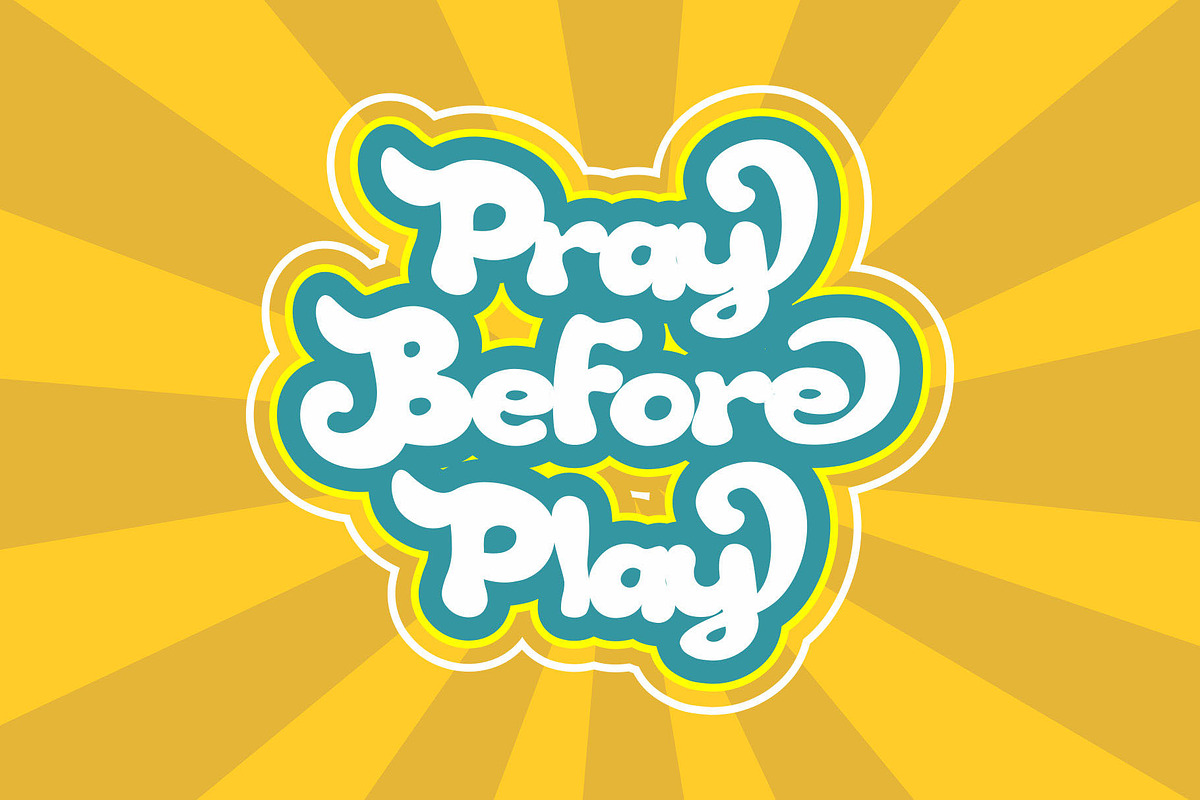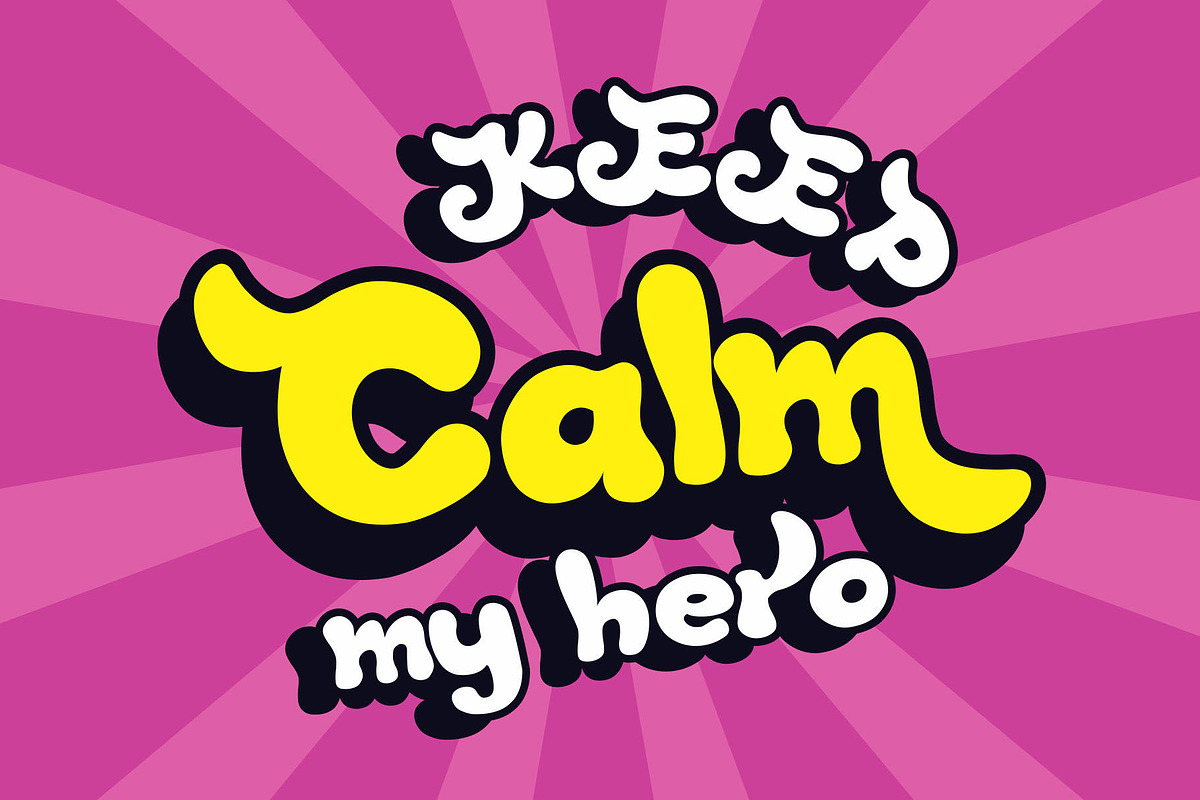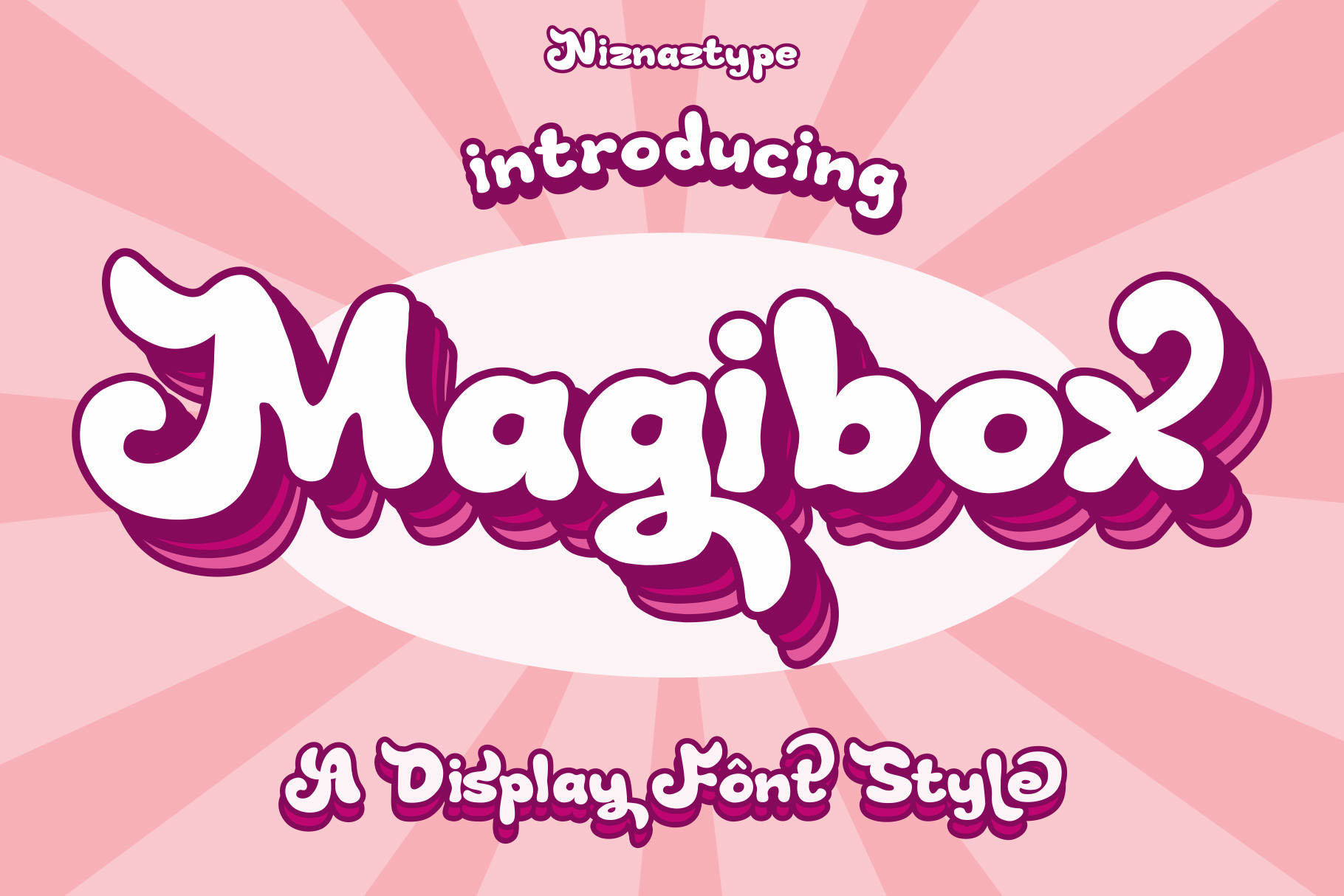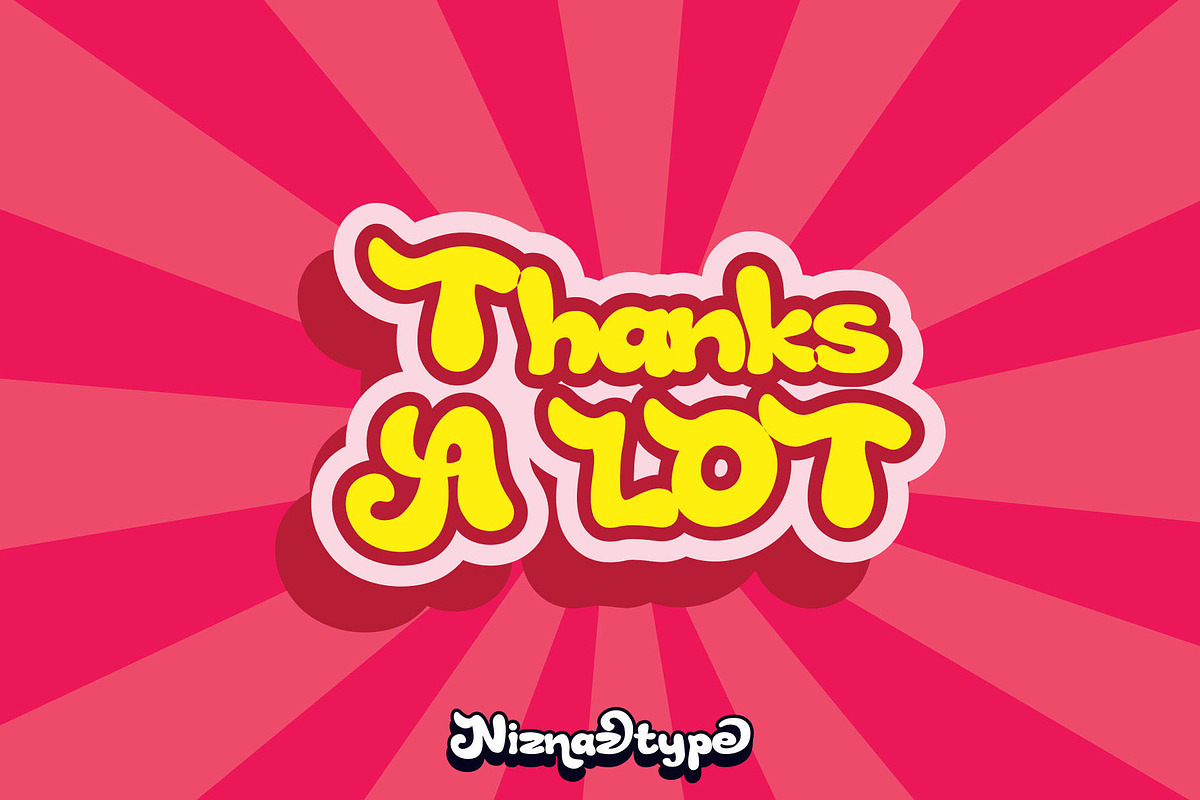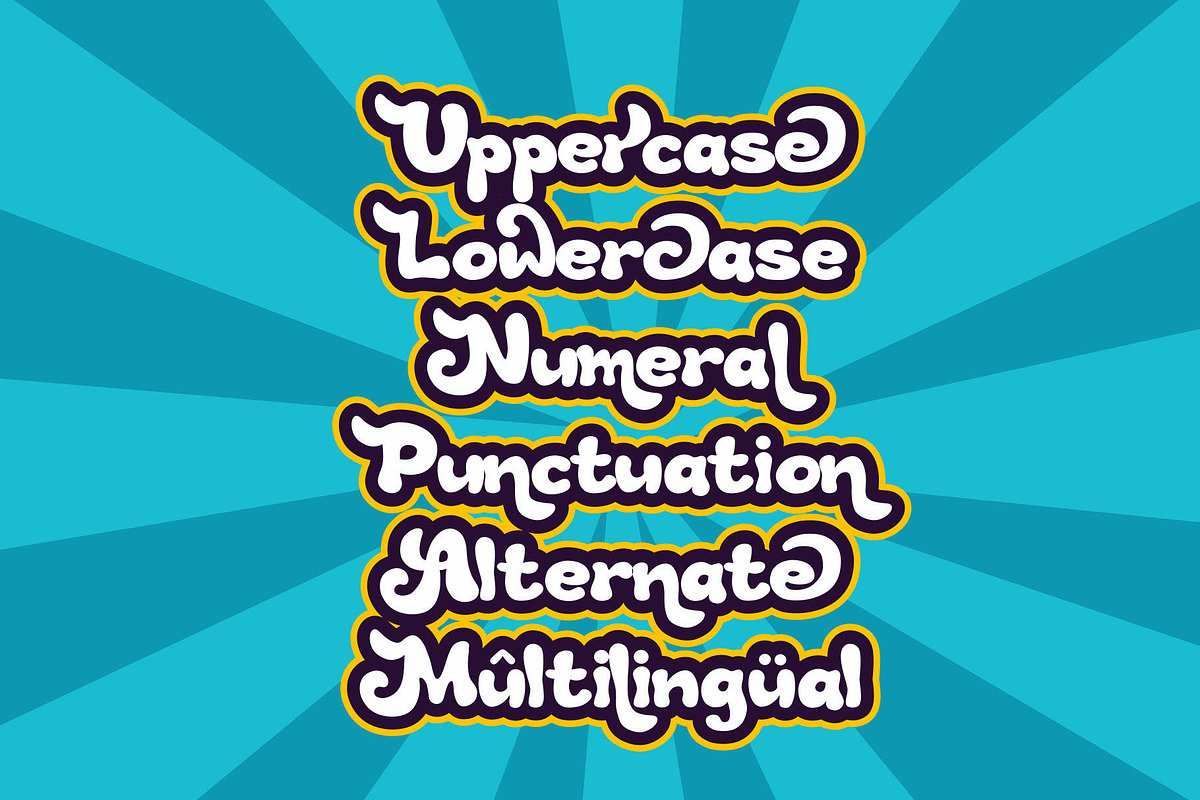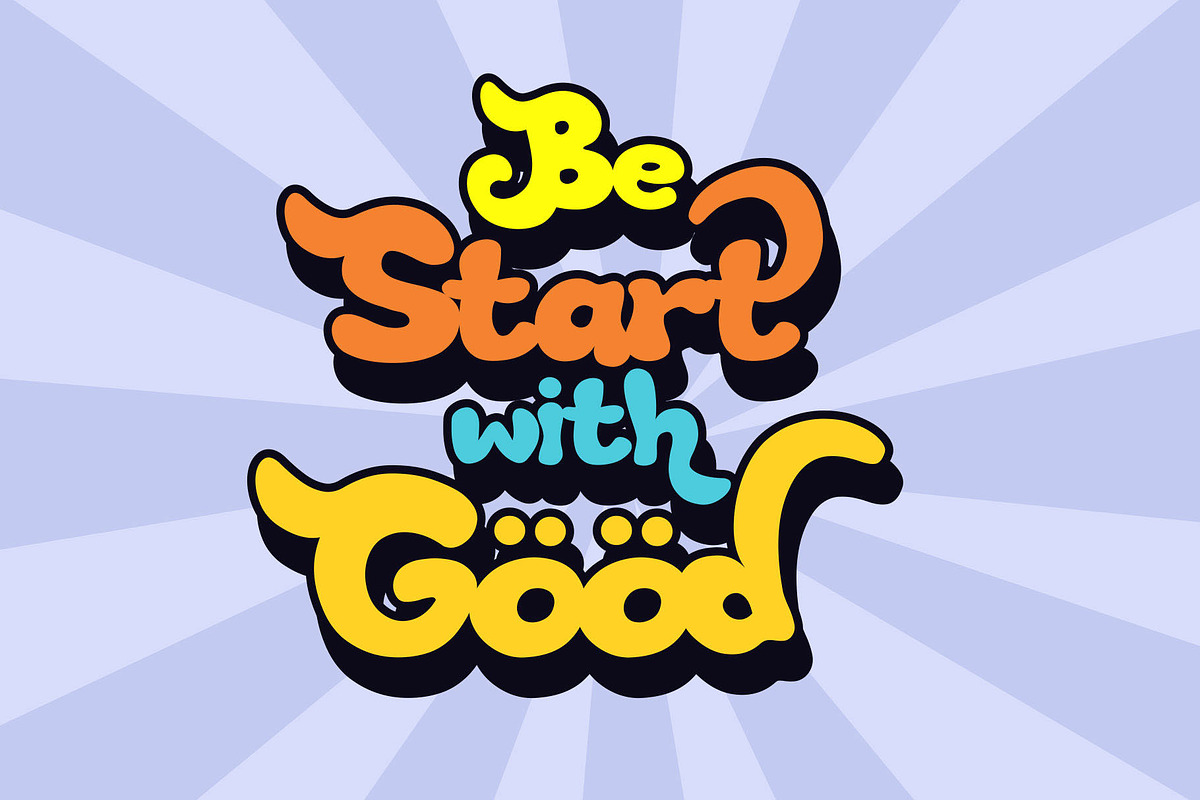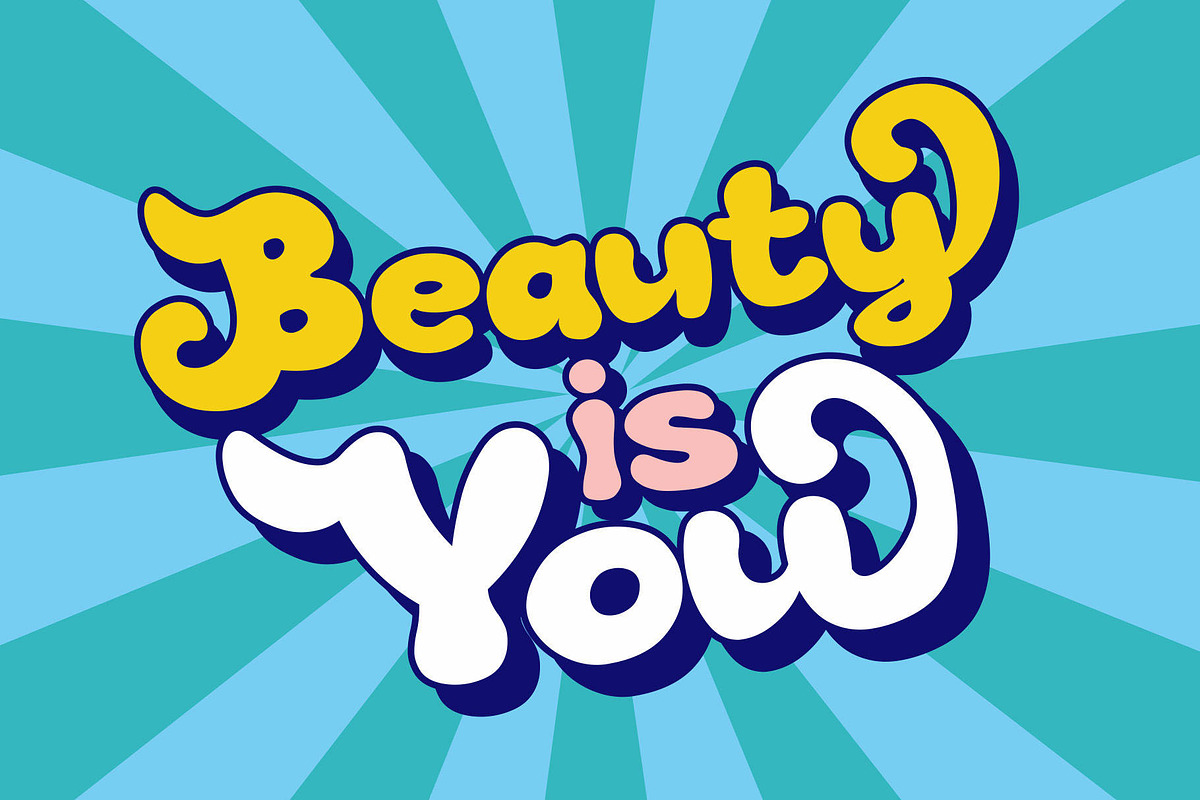
Magibox - A Display Bold Font
Introducing a display font that have an bold and cute style. That font called Magibox. Simple typeface with unique characteristic. Magibox suitable for poster, wallpaper, tittle, t-shirt, headline and others. Graphic design that have themes like pop art, vintage, funny and kids also suitable to use this Magibox font. Magibox saved in three formats, TTF OTF and WOFF. This font will make your desing became more better and interesting for people who see it. Please, enjoy it with my this font product. Send me email in emnazar@gmail.com if you have any question.